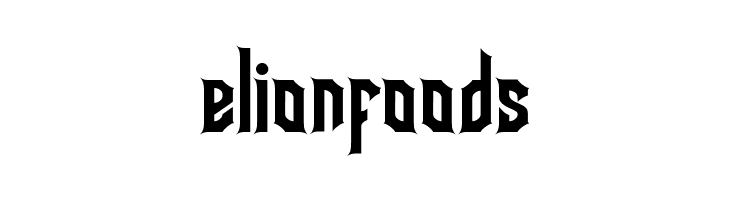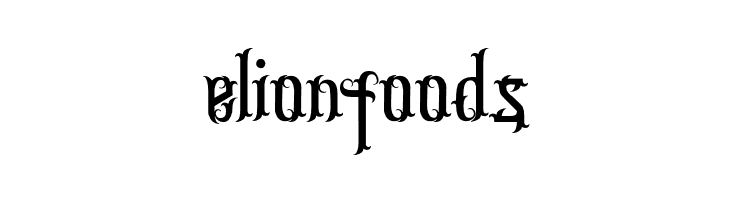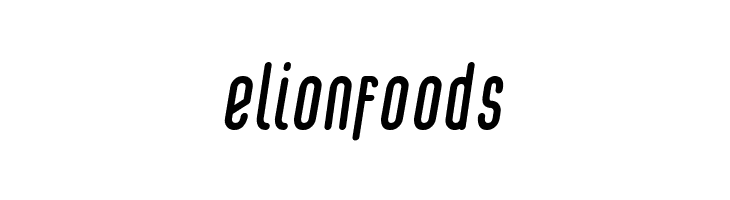
A bold, futuristic italic font with dynamic, rounded strokes.
A futuristic, outlined font with geometric and symmetrical design.
A futuristic, geometric outlined font with bold, rounded lines.
A bold, futuristic font with geometric, inverse-style characters.
A classic serif font with sharp serifs and balanced proportions.
A bold, distressed font with a vintage, textured appearance.
A bold, glitch-inspired font with a digital, fragmented aesthetic.
A bold, geometric font with minimal contrast and strong presence.
A playful, whimsical script font with smooth, flowing cursive letters.
A refined, high-contrast typeface with elongated strokes and elegant curves.
A bold, playful handwritten font with thick strokes and lively shapes.
A dynamic and expressive handwritten font with fluid, cursive letterforms.
A modern, narrow font with elongated characters and a sleek design.
A bold, Gothic-inspired font with sharp, angular edges.
A bold, brush-style font with dynamic, hand-painted strokes.
A bold, angular Gothic-inspired font with a dramatic presence.
A bold, angular font with a geometric and aggressive style.
A jagged, edgy font with a hand-drawn, rebellious style.
An elegant script font with high contrast and ornate flourishes.
A bold, expressive handwritten font with brush-like strokes.
A flowing, cursive font with elegant, connected strokes and a handwritten appearance.
A flowing, cursive font with elegant loops and smooth transitions.
A bold, dynamic script font with fluid, connected letterforms.
A bold, playful script font with a handwritten feel and dynamic character shapes.
A bold, flowing script font with a dynamic, handwritten style.
A flowing, cursive font with an elegant and dynamic handwritten style.
A lively and dynamic script font with fluid, cursive letterforms.
A modern vintage font with rounded, elongated letterforms and consistent stroke width.
A modern, italicized font with elongated, rounded characters.
A playful, bold font with rounded edges and a hand-drawn aesthetic.
A bold, high-contrast serif font with angular cuts and modern flair.